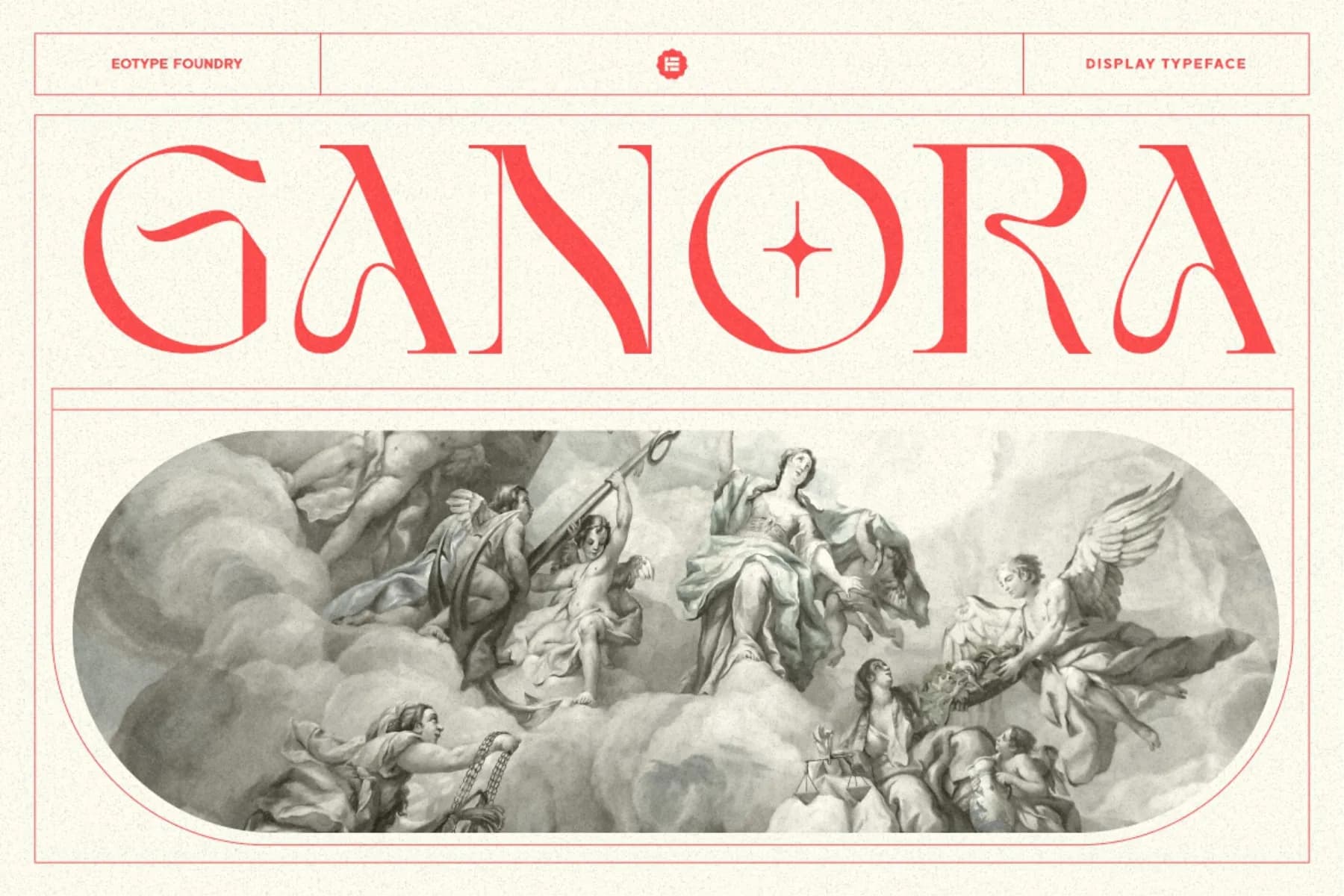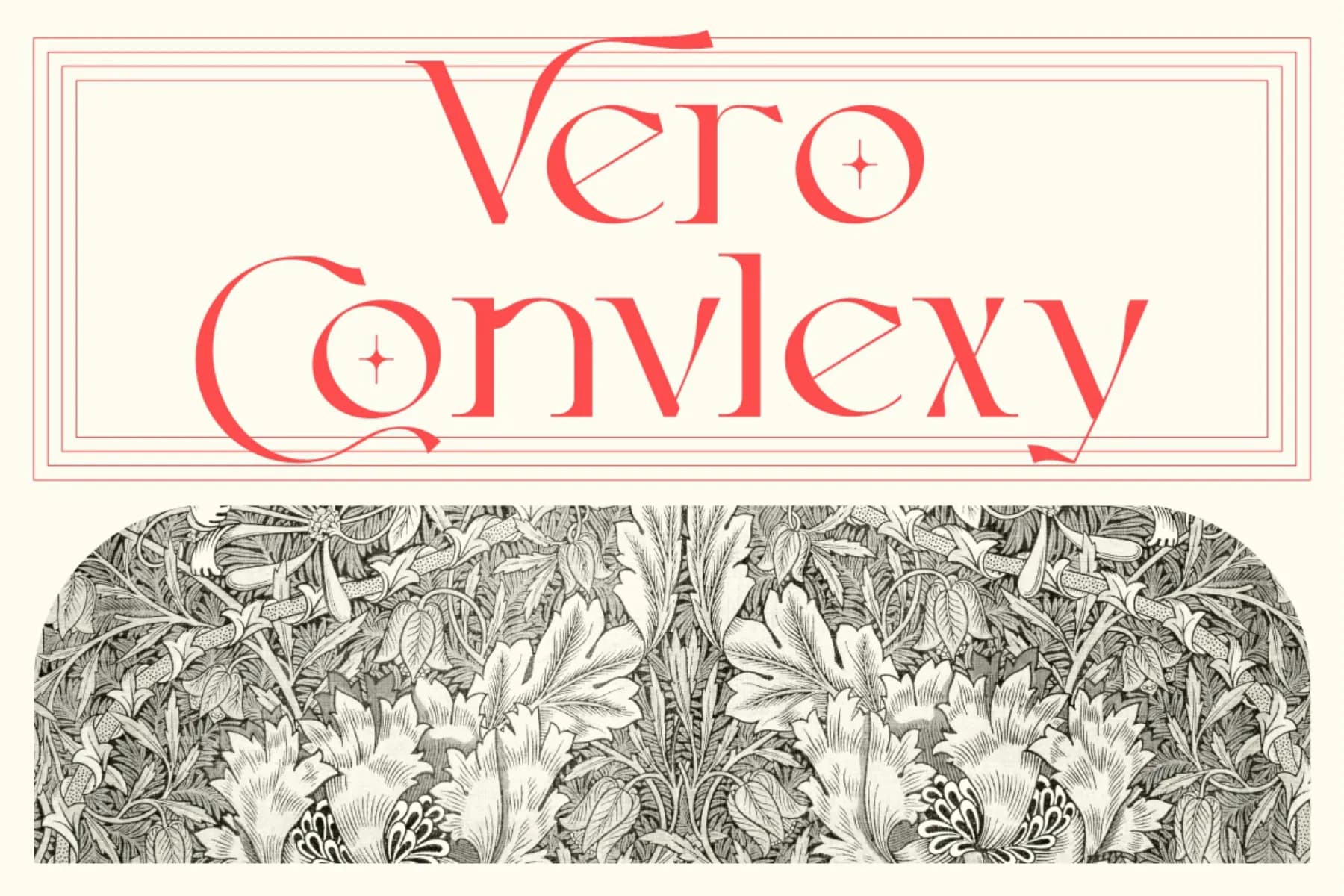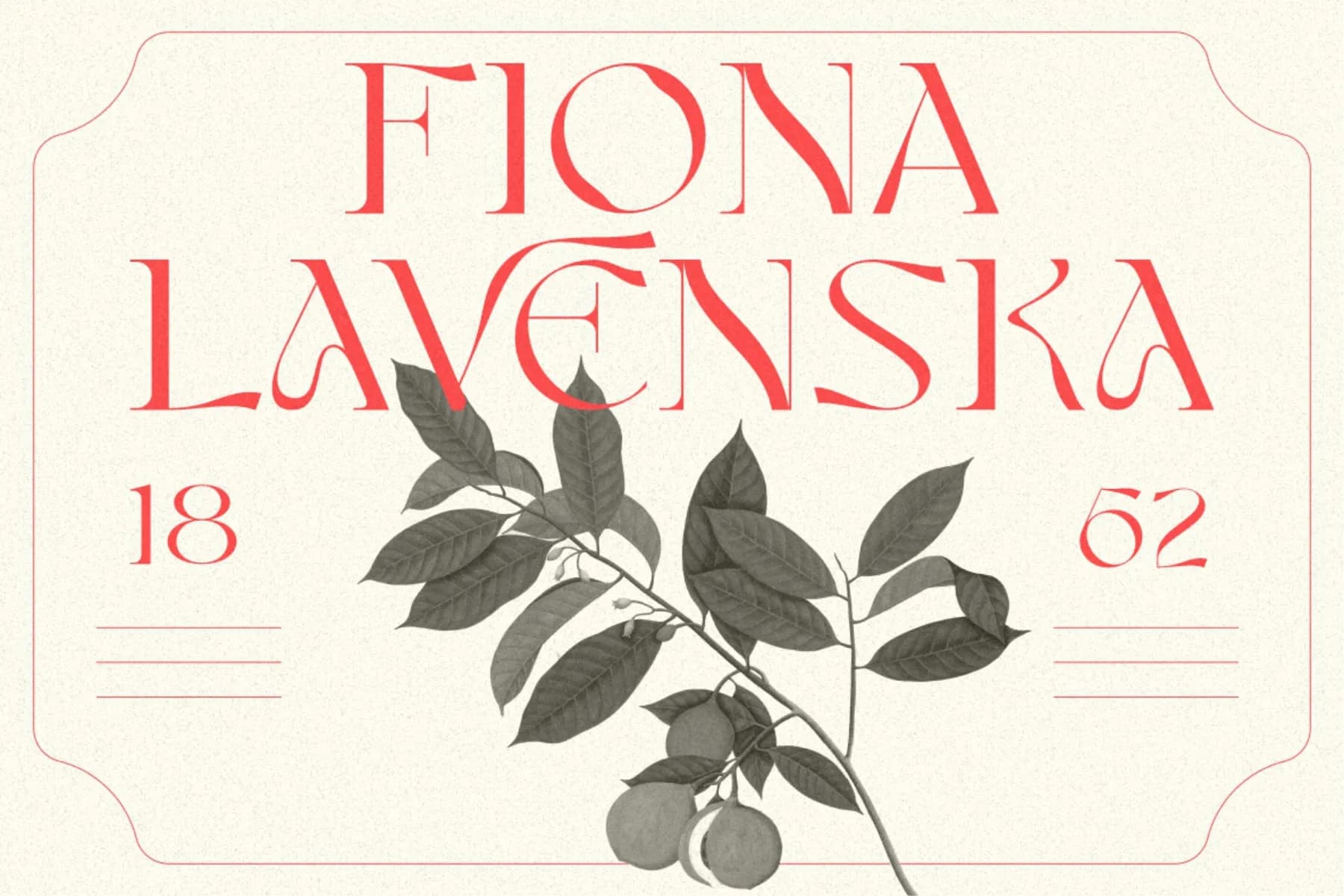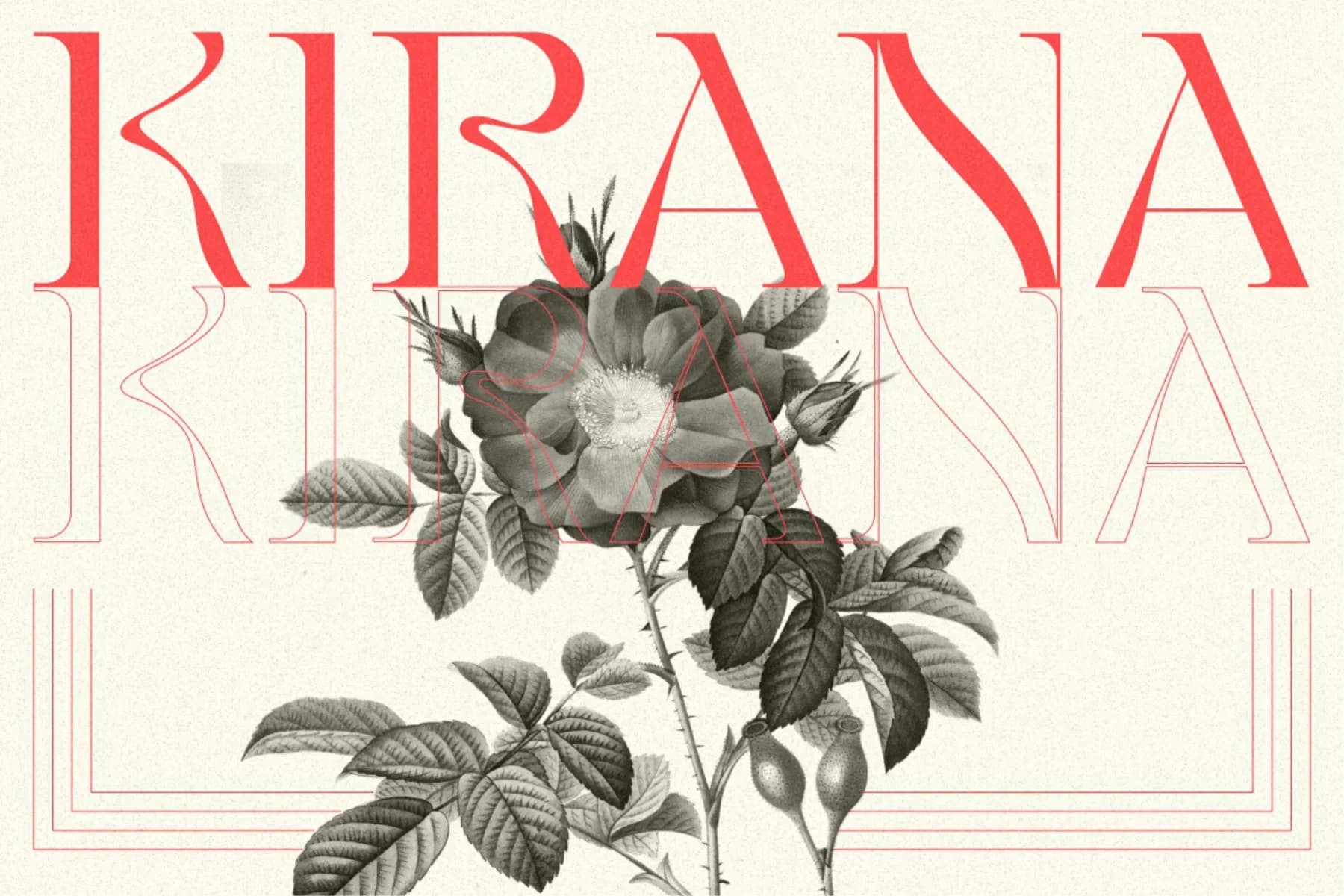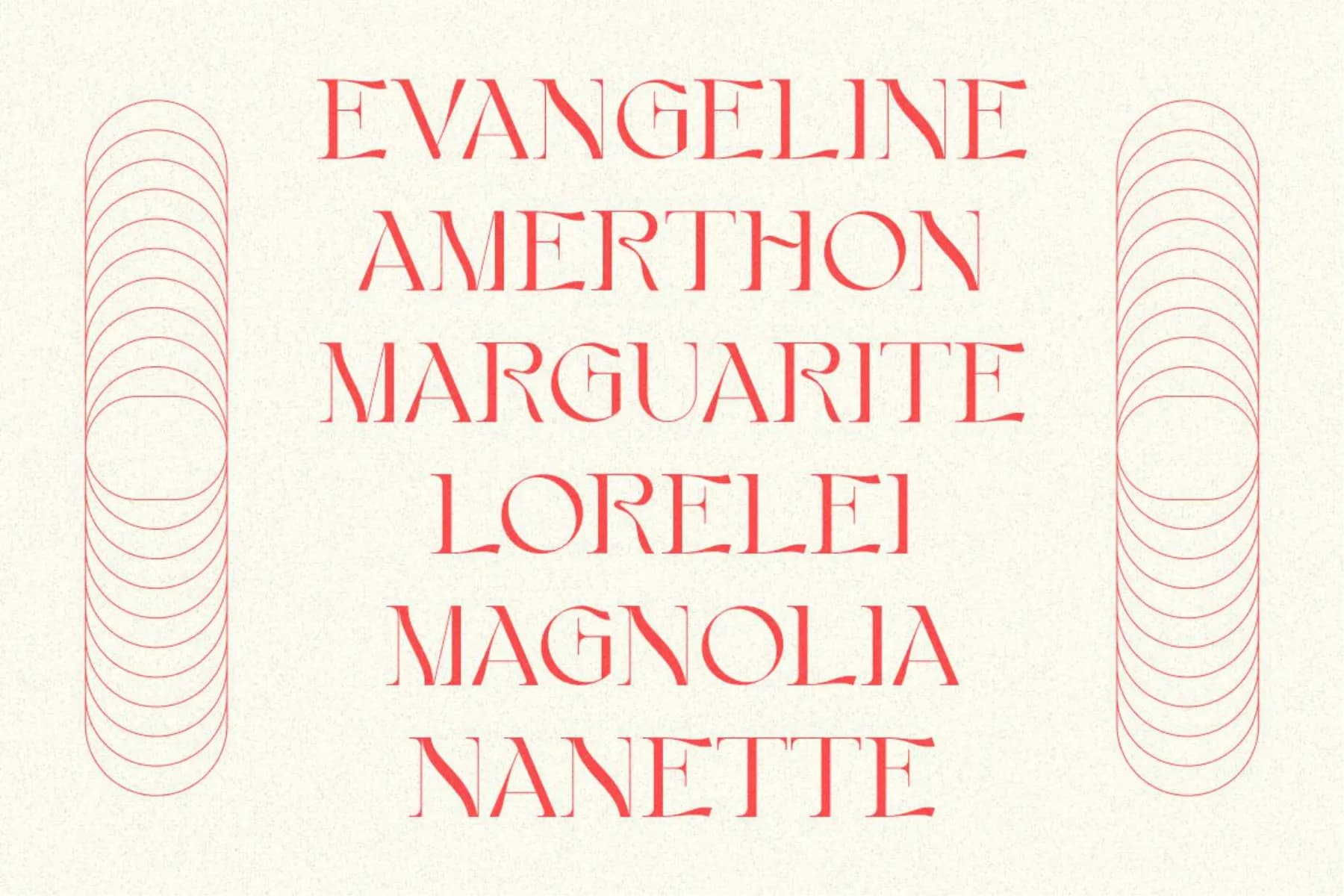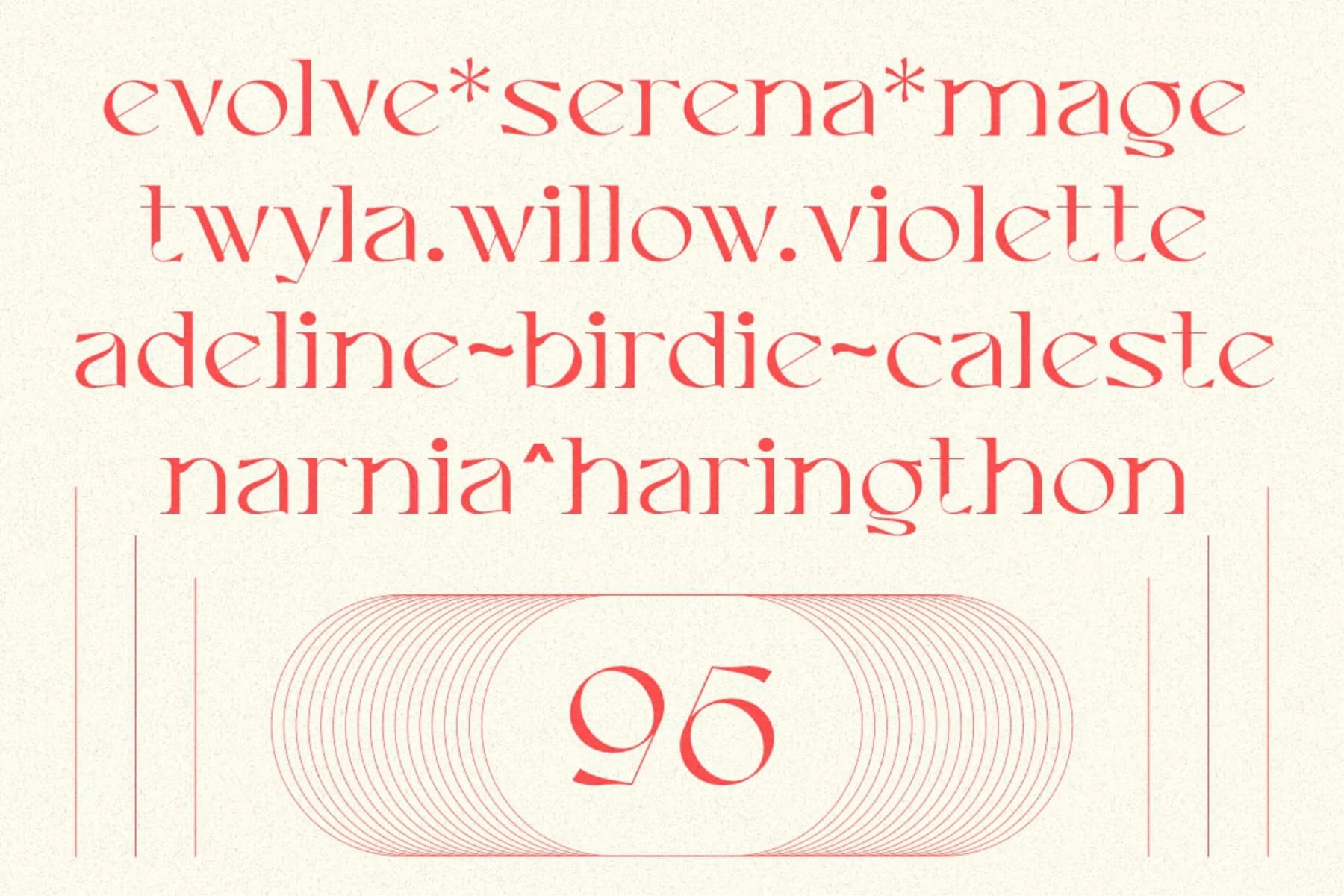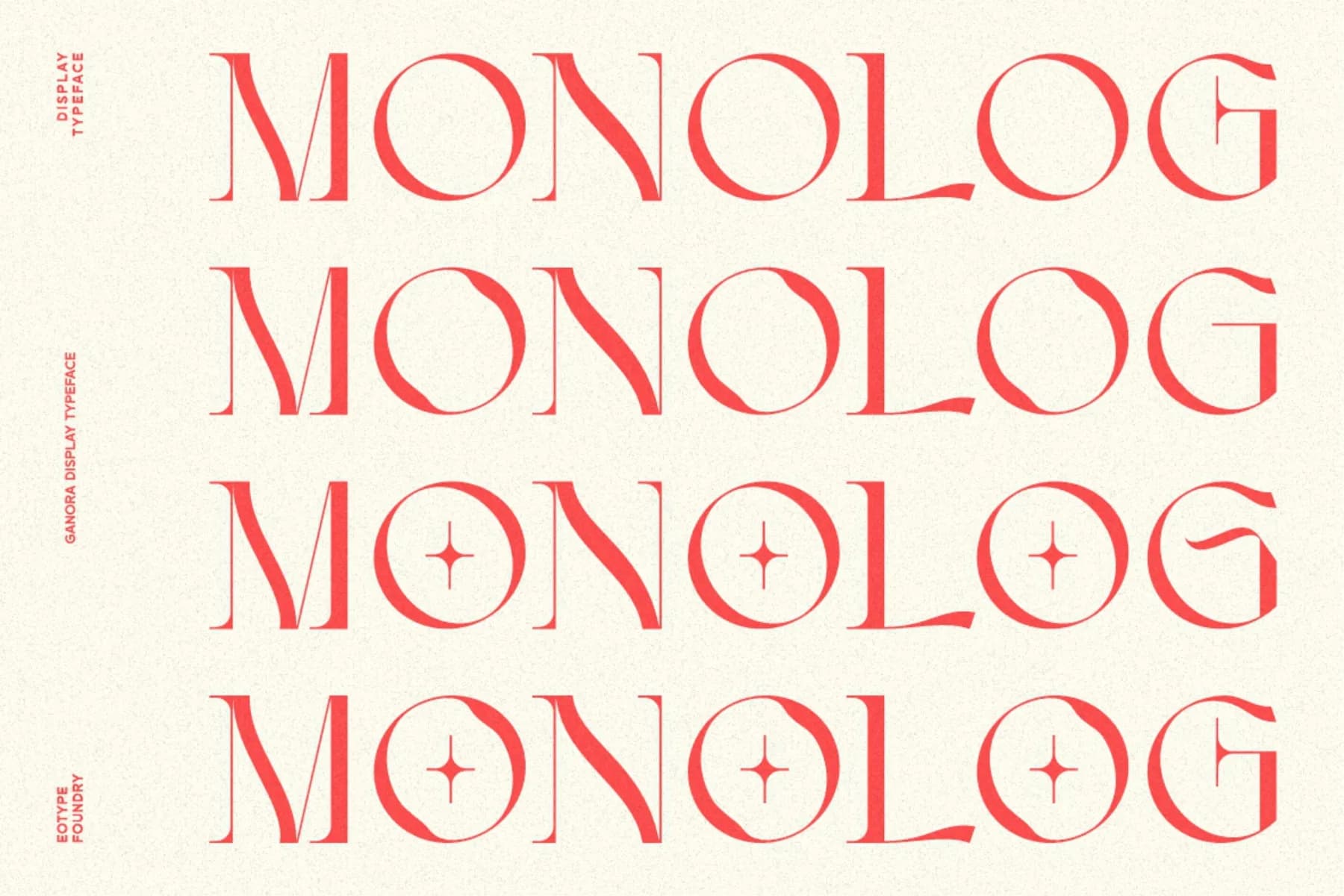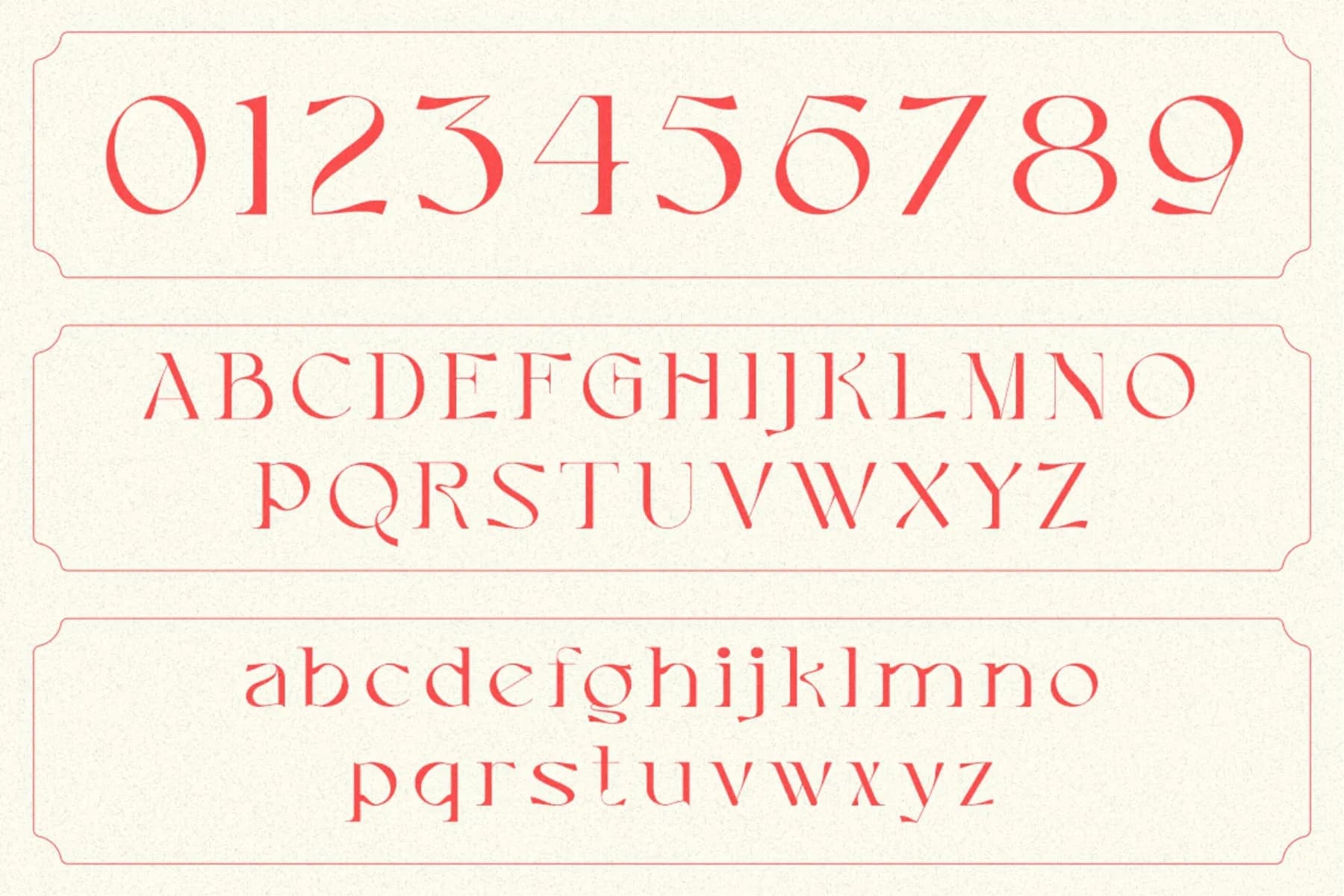
Ganora Decorative Font
Ganora is a semi serif decorative font. This font has a beautiful and aesthetic look. This font has classic serif legibility as well as beautiful modern curves. This combination makes type interesting in its own way. This font has alternate and ligature features that can help you complete projects like logos, magazines, brands and more.